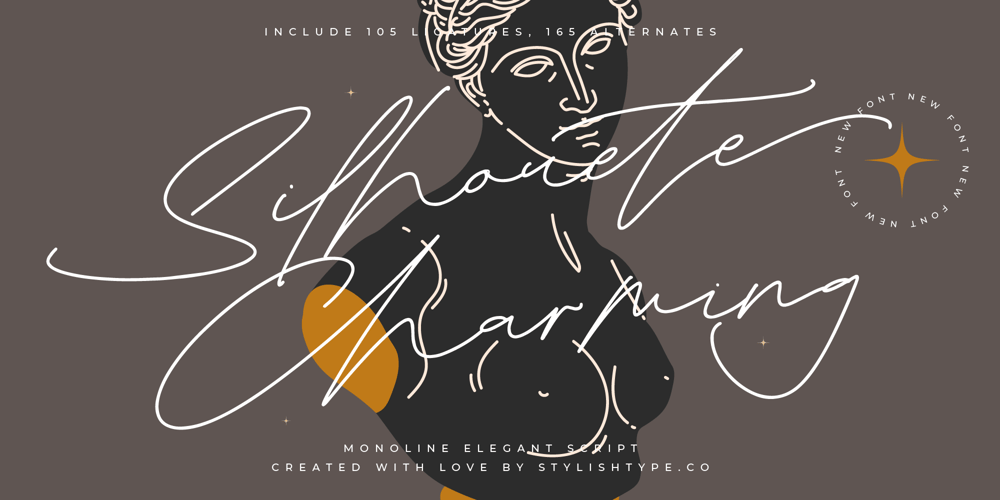
Silhouete Charming Font Family was designed by Heru Utama Putra and published by Stylishtype Studio. Silhouete Charming contains 2 styles and family package options. Silhouete Charming – Monoline Elegant Script , from Stylishtype, Suitable for any projects such as: logos, branding projects, homeware designs, product packaging, mugs, quotes, posters, shopping bags, t-shirts, book covers, name card, invitation cards, greeting cards, label, photography, watermark, special events, and all your other luxury and beautiful projects that need a Luxury Script taste.